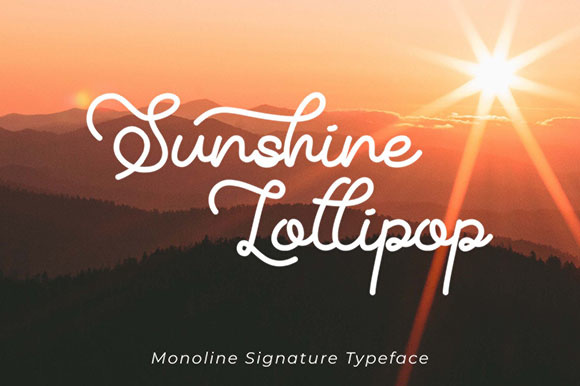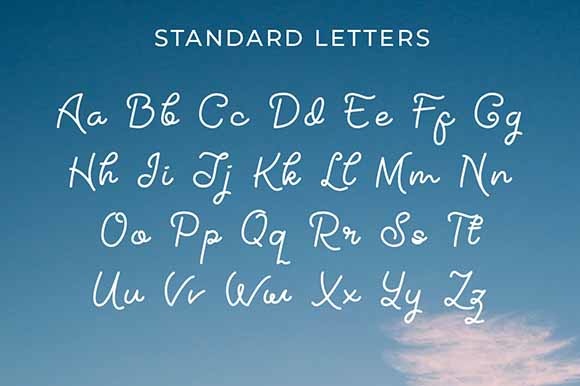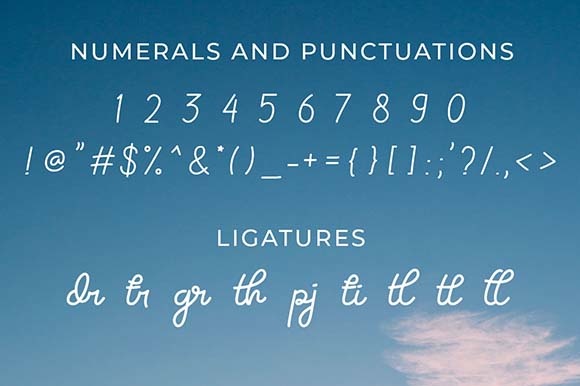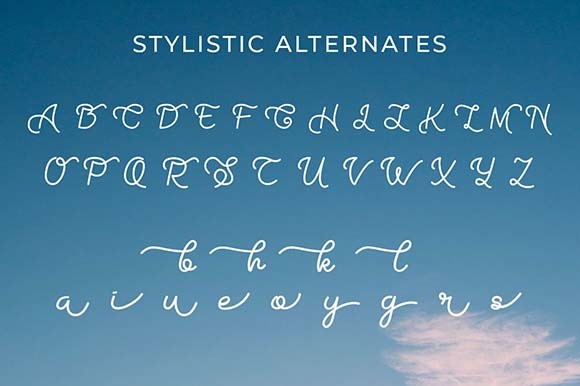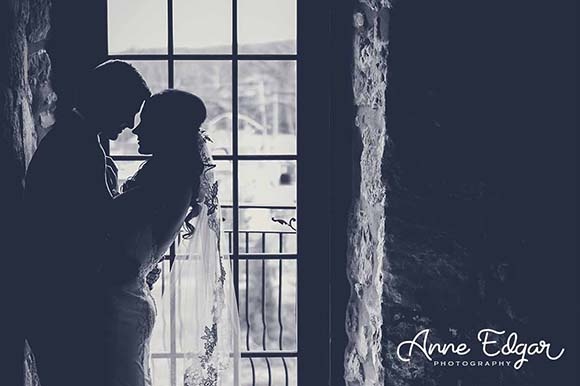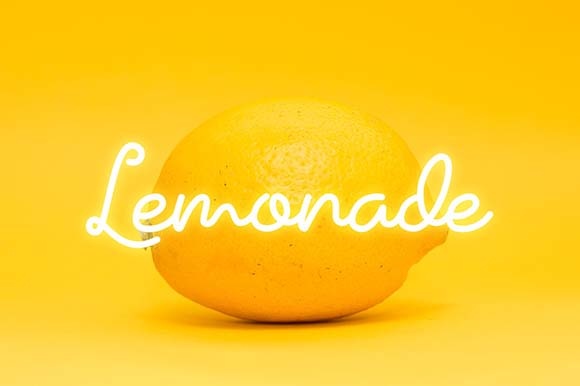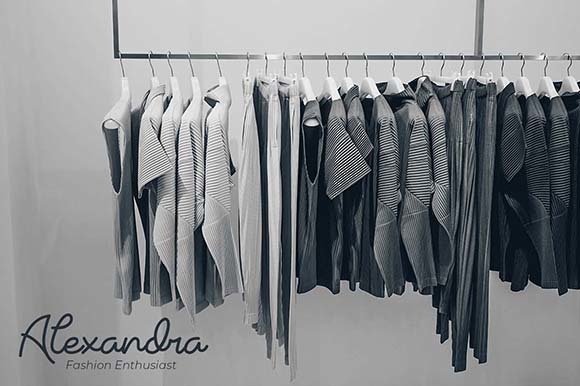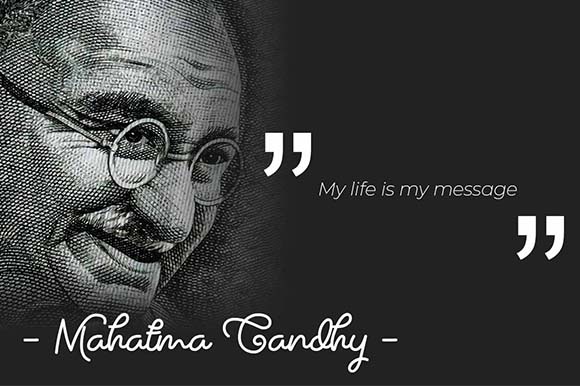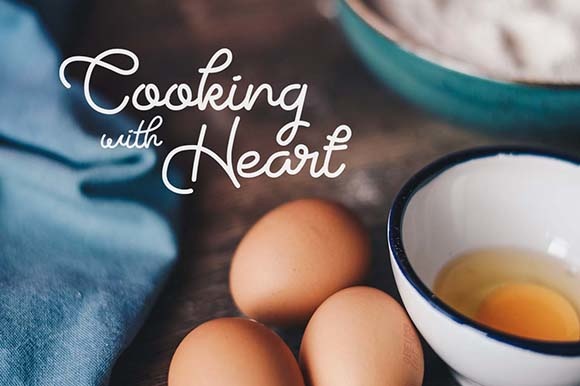
Sunshine Lollipop Font
About Sunshine Lollipop Font
The Sunshine Lollipop is a beautiful monoline signature font. It’s suitable for logos, quotes, magazines, clothing, posters, and much more!